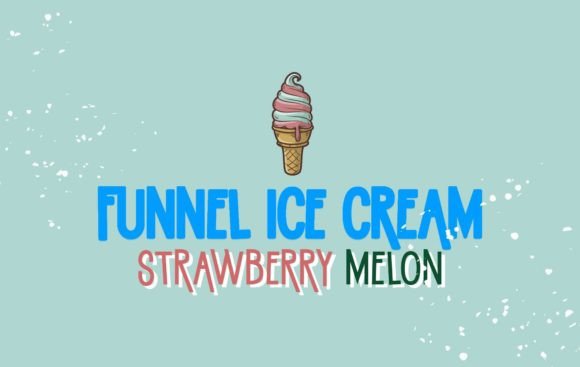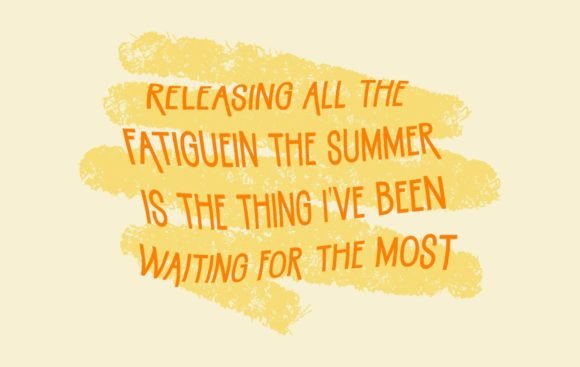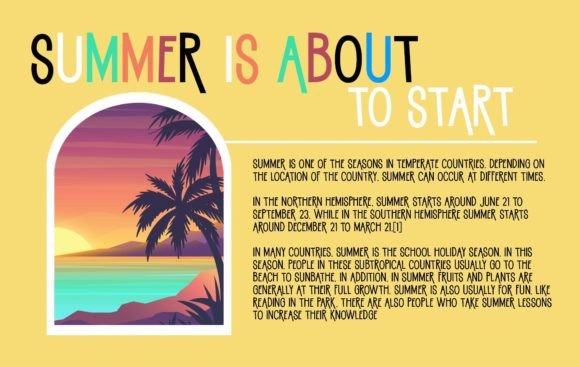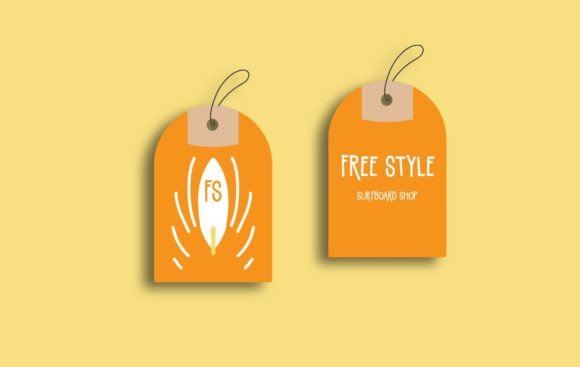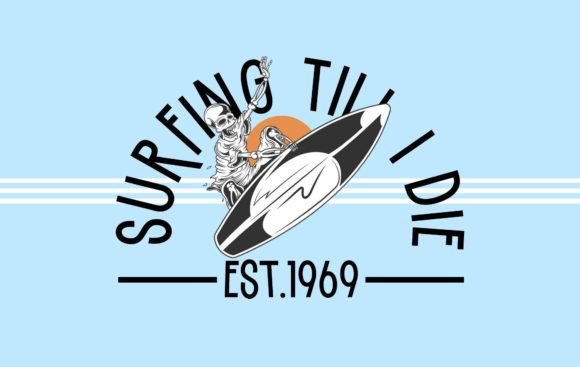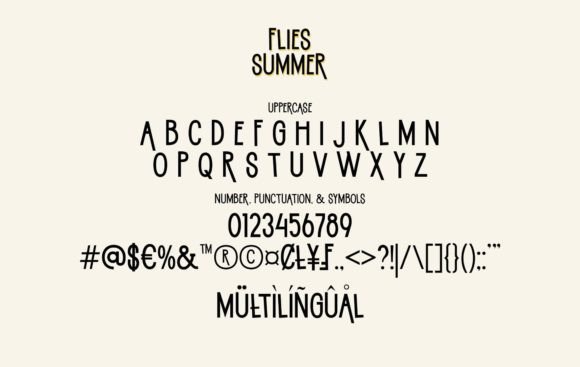
Introducing Flies Summer Font: The Ultimate Fun and Whimsical Display Font
Are you tired of using the same old boring fonts in your designs? Look no further! Flies Summer Font is here to add a touch of fun and whimsy to your projects. This display font is perfect for designers and crafters who want to add a little bit of quirkiness to their work. In this article, we’ll dive into the features and benefits of Flies Summer Font, and explore how you can use it to take your designs to the next level.
A Little Bit Quirky, A Lot of Fun
Flies Summer Font is a unique and playful font that’s sure to grab attention. Its quirky design makes it perfect for a wide range of contexts, from bold headlines to creative branding projects. Whether you’re designing a logo, a poster, or a social media graphic, Flies Summer Font is sure to add a touch of personality to your work.
Key Features of Flies Summer Font
- Fun and whimsical design: Flies Summer Font has a playful and carefree design that’s sure to bring a smile to your face.
- Quirky and unique: This font is a little bit quirky, making it perfect for designers who want to add some personality to their work.
- Display font: Flies Summer Font is a display font, making it perfect for headlines, titles, and other attention-grabbing elements.
- Highly versatile: This font can be used in a wide range of contexts, from digital designs to print projects.
Benefits of Using Flies Summer Font
So why should you choose Flies Summer Font for your next project? Here are just a few benefits of using this fun and whimsical font:
- Adds personality to your designs: Flies Summer Font is a great way to add some personality to your designs and make them stand out from the crowd.
- Perfect for creative projects: This font is perfect for creative projects, such as branding, advertising, and marketing materials.
- Easy to read: Despite its quirky design, Flies Summer Font is easy to read, making it perfect for headlines and titles.
- Great for digital and print projects: This font can be used in both digital and print projects, making it a versatile addition to your font library.
How to Use Flies Summer Font in Your Designs
Now that we’ve covered the features and benefits of Flies Summer Font, let’s talk about how to use it in your designs. Here are a few ideas to get you started:
- Use it as a headline font: Flies Summer Font is perfect for headlines and titles, making it a great choice for blog posts, articles, and other digital content.
- Add it to your branding materials: This font is a great choice for branding materials, such as logos, business cards, and brochures.
- Use it in your social media graphics: Flies Summer Font is a great choice for social media graphics, such as Facebook posts, Twitter headers, and Instagram stories.
- Experiment with different colors and textures: Don’t be afraid to experiment with different colors and textures to really make Flies Summer Font pop.
| Font Name | Flies Summer Font |
| Author | inkspirate.design |
In conclusion, Flies Summer Font is a fun and whimsical display font that’s perfect for designers and crafters who want to add a little bit of quirkiness to their work. With its unique design, versatility, and ease of use, this font is sure to become a favorite in your font library. So why not give it a try and see how you can use Flies Summer Font to take your designs to the next level?
Whether you’re a seasoned designer or just starting out, Flies Summer Font is a great choice for any project. Its fun and playful design is sure to grab attention and add some personality to your work. So go ahead, get creative, and have fun with Flies Summer Font!